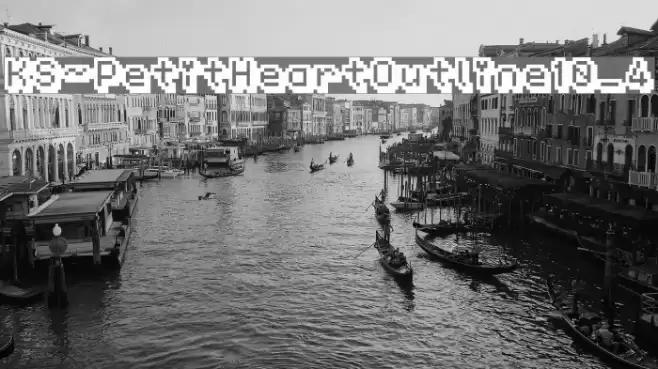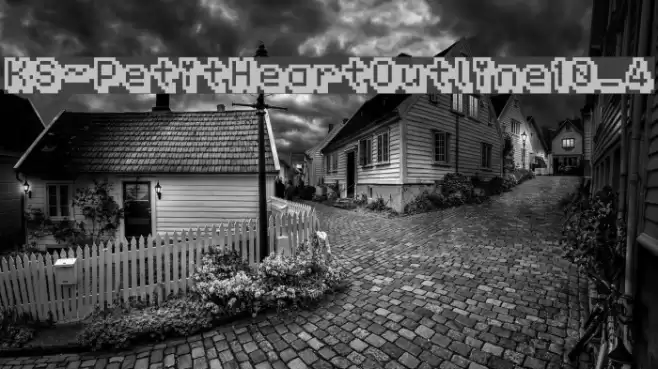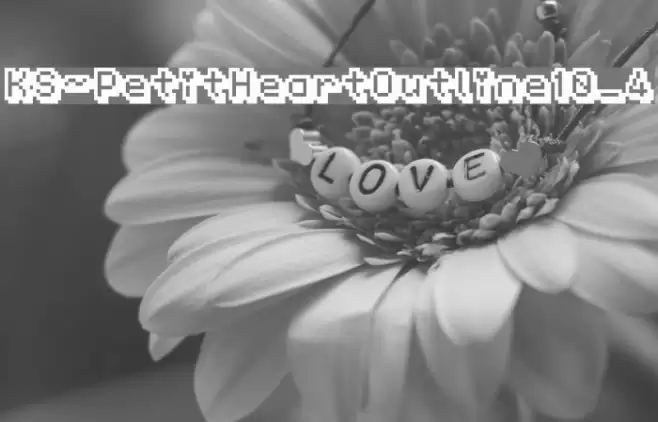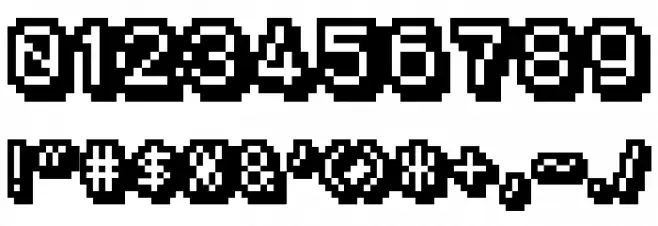
KS-PetitHeartOutline10_4 Font
KS-PetitHeartOutline10_4 Description
This font features a pixelated, blocky design that evokes a retro, video game aesthetic. Each character is outlined, giving it a distinct, bold appearance that stands out against backgrounds. The uppercase and lowercase letters maintain a consistent style, with sharp edges and uniform spacing. Numbers and special characters follow the same design principles, ensuring a cohesive look across all glyphs. The font's playful and nostalgic feel makes it ideal for projects that aim to capture a sense of fun and nostalgia, reminiscent of early digital graphics.
A pixelated, outlined font with a retro video game style from Uncategorized fonts.
- Proposed Projects: Ideal for video game design, retro-themed posters, digital art, and playful branding.
- Overall Style: Retro, Playful